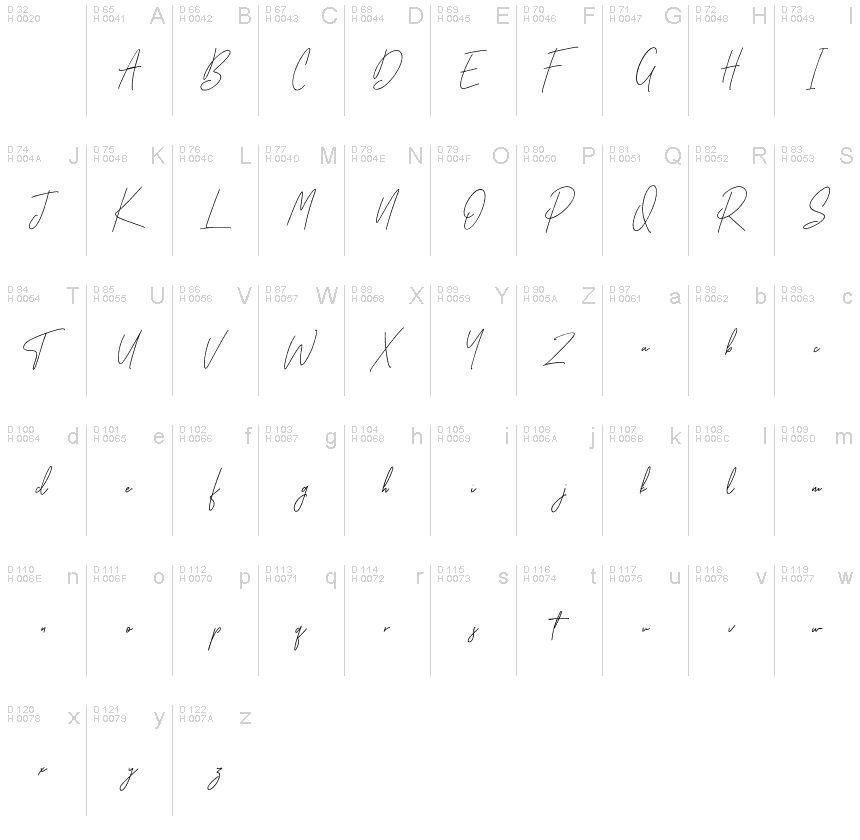
Goofers Free Regular
Goofers, the ultra-light handwritten font by Maulana Creative, is a whimsical and playful typeface perfect for creative projects. Its light weight gives it an airy feel that would be ideal for branding, logos and headlines. Use it for invitations, greeting cards or social media posts to add a touch of personal flair. Goofers' playful nature also makes it suitable for children's books, illustrations or posters. Its handwritten style adds an authentic touch to any project that requires a personal touch. Inject some fun into your designs with Goofers - the perfect font for all your creative needs!